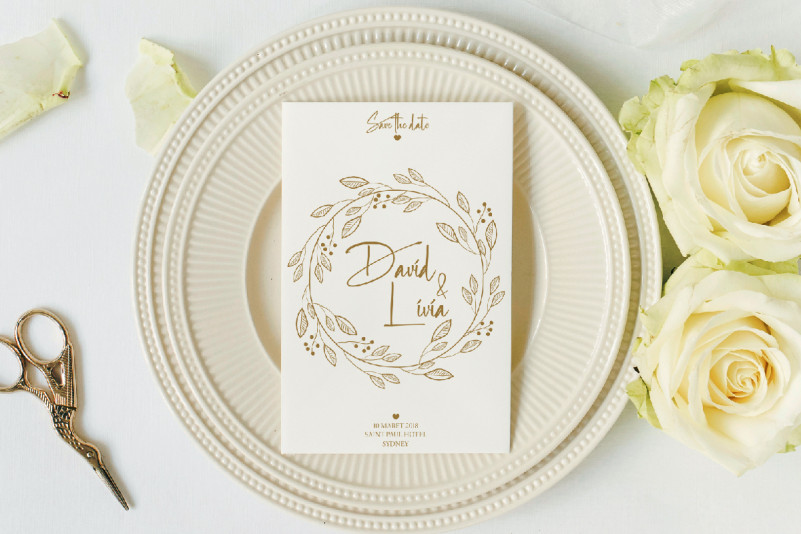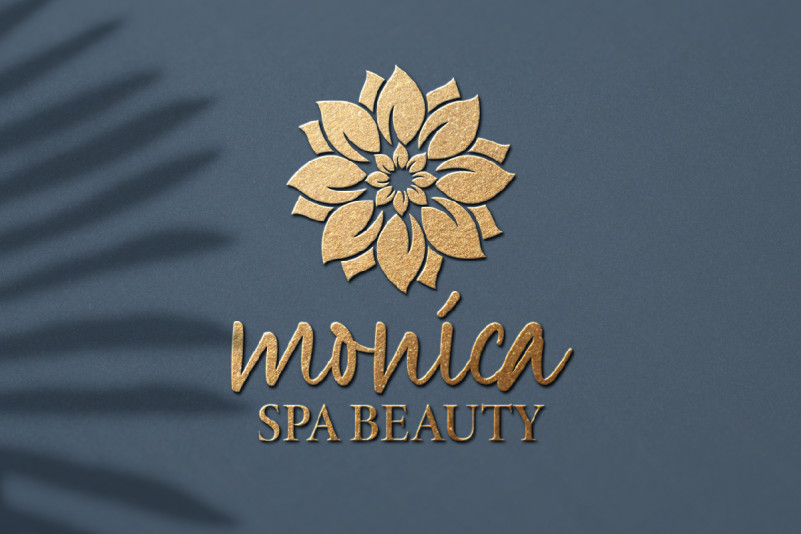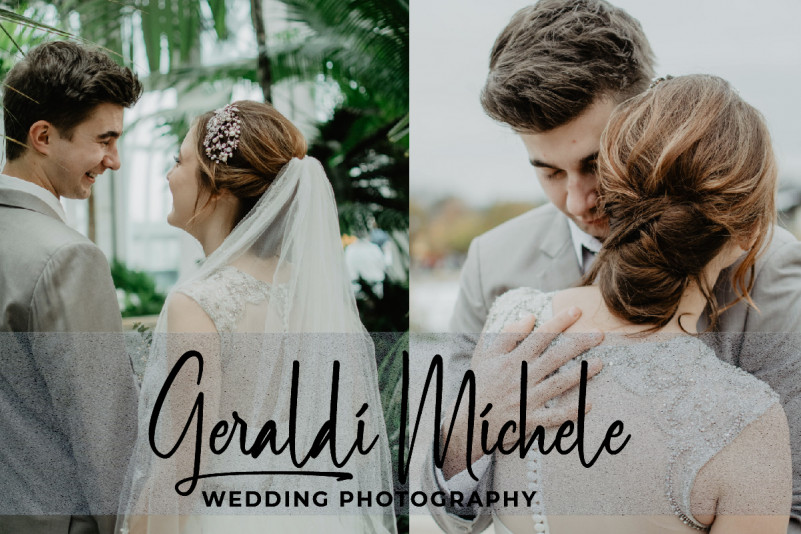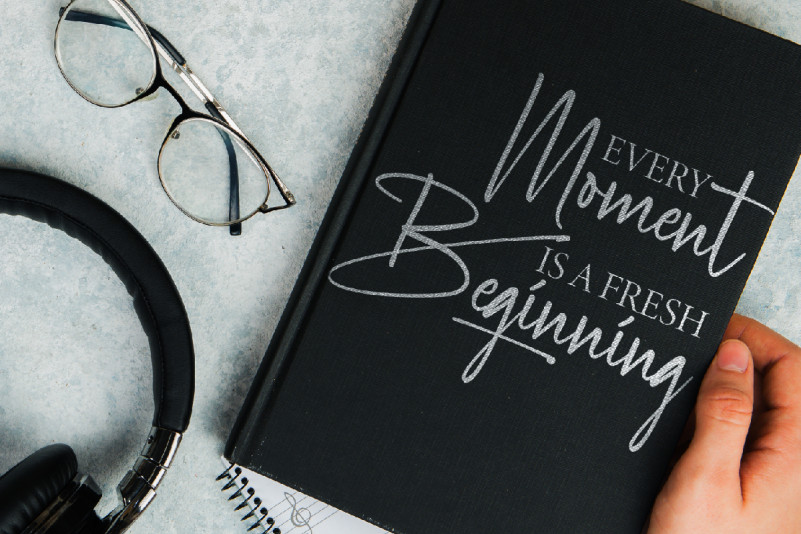
South Dakota Font
South Dakota Handwritten Font
This is a stunning handwriting signature font. It has unique looks that are beautiful, modern, elegant, luxury, lettering and sophisticated brush font.